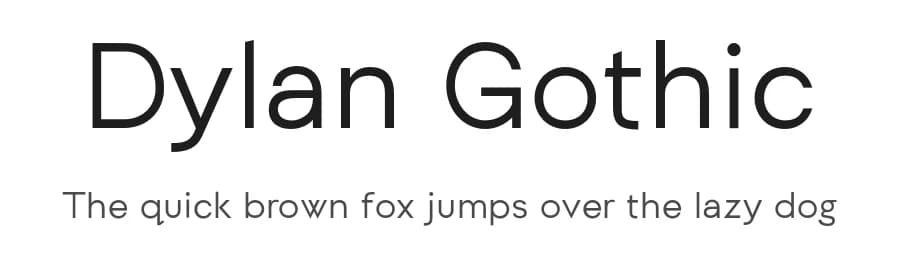
About Dylan Gothic Font
Dylan is a geometric sans-serif typeface designed for all branding, and visual needs. Dylan pays tribute to a lot of the traditions of the Bauhaus school of design, and some of the masters of that time. Dylan follows the modern take on geometric similar to Neue Kabel and FF Mark, which features wider letter sizing, along with several stylistic alternatives. This geometric typeface follows a lot of traditional geometric principles along with modern updates. This is the regular weight, and in the future with the support of the users there will be several other weights added. If you have any concerns about kerning pairs or letter spacing please do no be afraid to contact me at:
Dylan Gothic Specifications
Dylan Gothic supports 294 languages.
Dylan Gothic Font is a versatile sans-serif font that works for both headings and body text. Pair it with a contrasting serif or slab serif font to add visual interest and a clear distinction between titles and body copy.